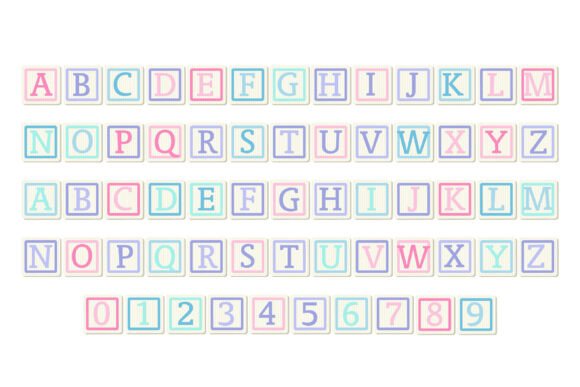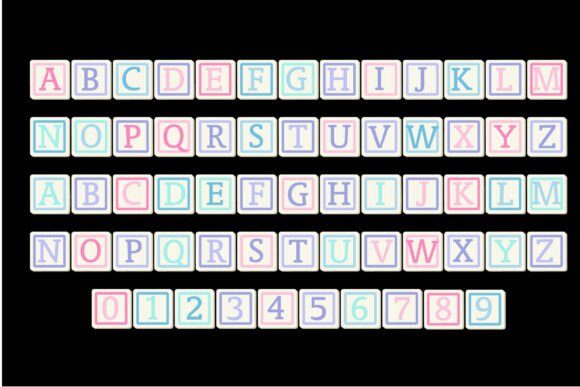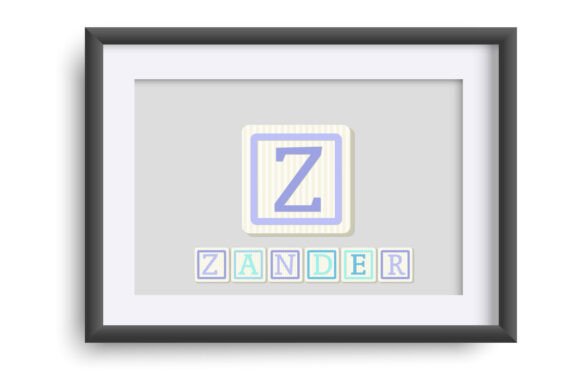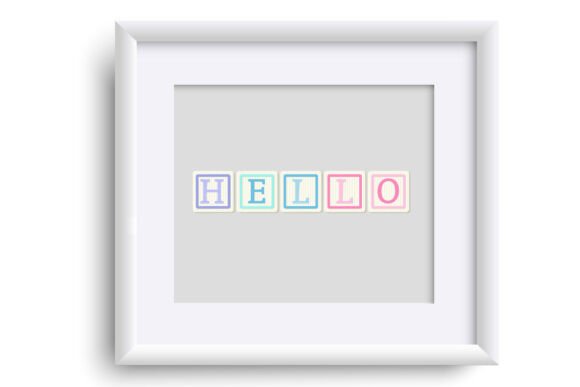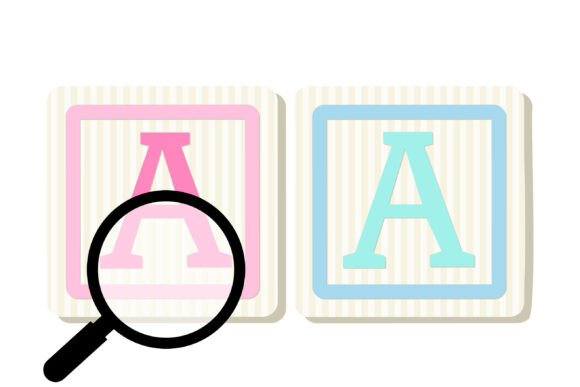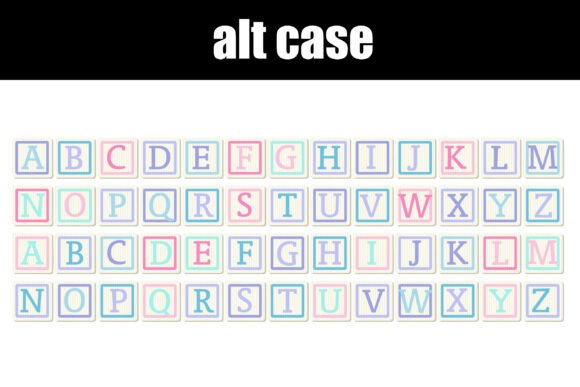
Baby Blocks Font: A Timeless Aesthetic for Your Creative Projects
Are you looking for a font that can add a touch of nostalgia and playfulness to your designs? Look no further than the Baby Blocks Font, a full-color SVG font that perfectly recreates the timeless aesthetic of wooden nursery blocks. In this article, we’ll explore the features and benefits of this unique font and how it can elevate your creative projects.
A Classic Look with a Modern Twist
The Baby Blocks Font features traditional slab-serif letters set within soft-edged, cream-colored squares, complete with delicate pinstripe textures and colorful nested borders. The palette of soft pink, lavender, and sky blue gives the font a soft, calming feel that’s perfect for designs related to babies and children. The font’s classic look is reminiscent of traditional wooden nursery blocks, but its modern twist makes it suitable for a wide range of creative projects.
The Baby Blocks Font is an exceptional choice for a variety of projects, including:
- Baby shower invitations: Add a touch of whimsy and playfulness to your baby shower invitations with this charming font.
- Personalized nursery name art: Create beautiful and unique nursery name art with the Baby Blocks Font.
- Children’s toy branding: The font’s playful and nostalgic feel makes it perfect for branding children’s toys and products.
- Milestone photography overlays: Add a professional touch to your milestone photography overlays with this elegant font.
The Benefits of an SVG Font
The Baby Blocks Font is an SVG font, which means that it preserves the detailed 3D block effect in every character. This delivers a sense of nostalgic playfulness and handcrafted quality to your creative projects. Unlike traditional fonts, SVG fonts like Baby Blocks can be scaled up or down without losing any quality, making them perfect for a wide range of applications.
Why Designers and Crafters Love the Baby Blocks Font
Designers and crafters love the Baby Blocks Font for several reasons:
- Unique and eye-catching design: The font’s unique design makes it stand out from more traditional fonts.
- Versatile: The font can be used for a wide range of projects, from digital designs to print materials.
- High-quality: The font is made up of high-quality SVG files, ensuring that it looks great in every application.
Tips for Using the Baby Blocks Font
Here are a few tips for using the Baby Blocks Font in your creative projects:
- Experiment with different colors: While the font comes with a pre-defined color palette, feel free to experiment with different colors to match your brand or design.
- Mix and match with other fonts: The Baby Blocks Font pairs well with other fonts, so don’t be afraid to mix and match to create a unique look.
- Use it for headlines and titles: The font’s bold and playful design makes it perfect for headlines and titles.
The Baby Blocks Font is a unique and versatile font that’s perfect for designers and crafters looking to add a touch of nostalgia and playfulness to their creative projects. With its classic look, modern twist, and high-quality SVG files, this font is sure to become a favorite in your design arsenal. Whether you’re creating baby shower invitations, personalized nursery name art, or children’s toy branding, the Baby Blocks Font is an excellent choice.